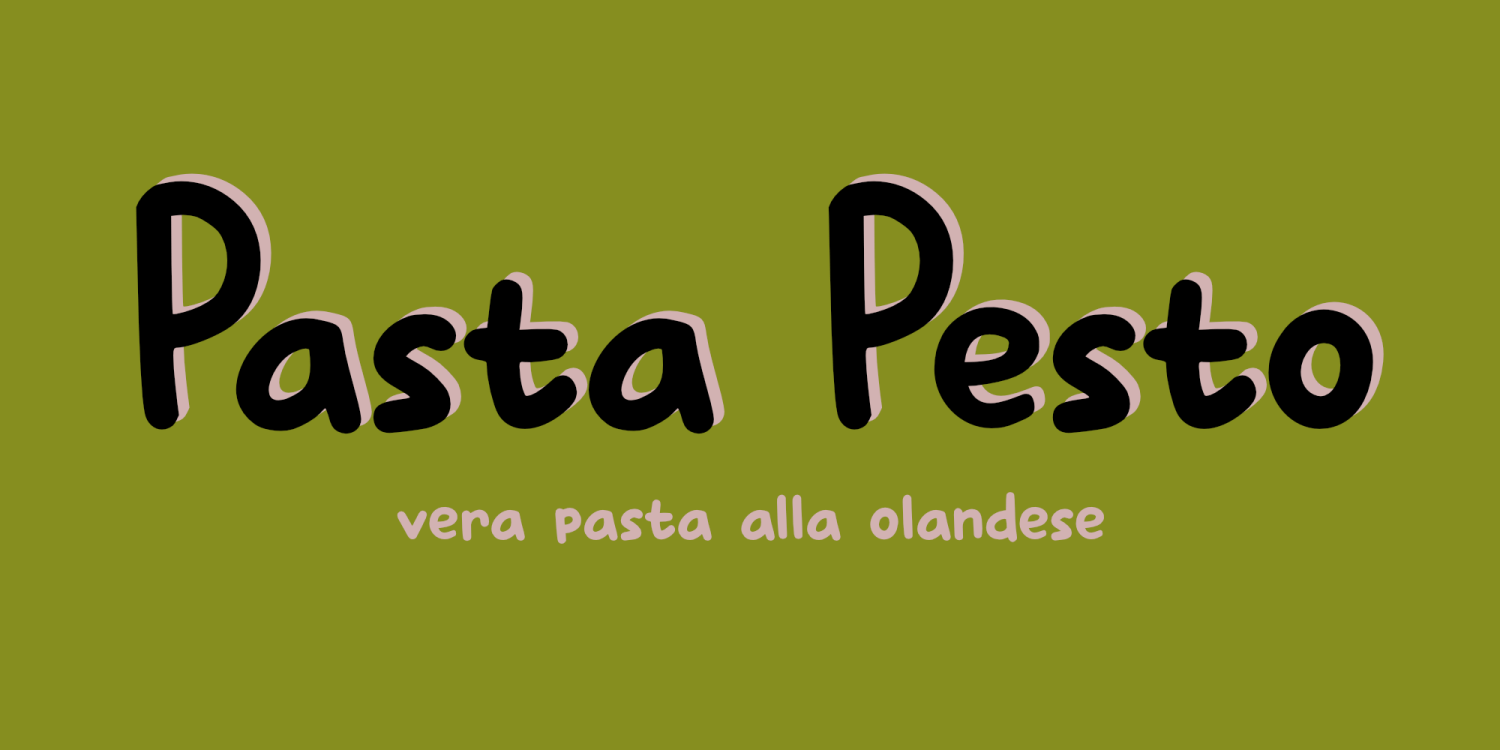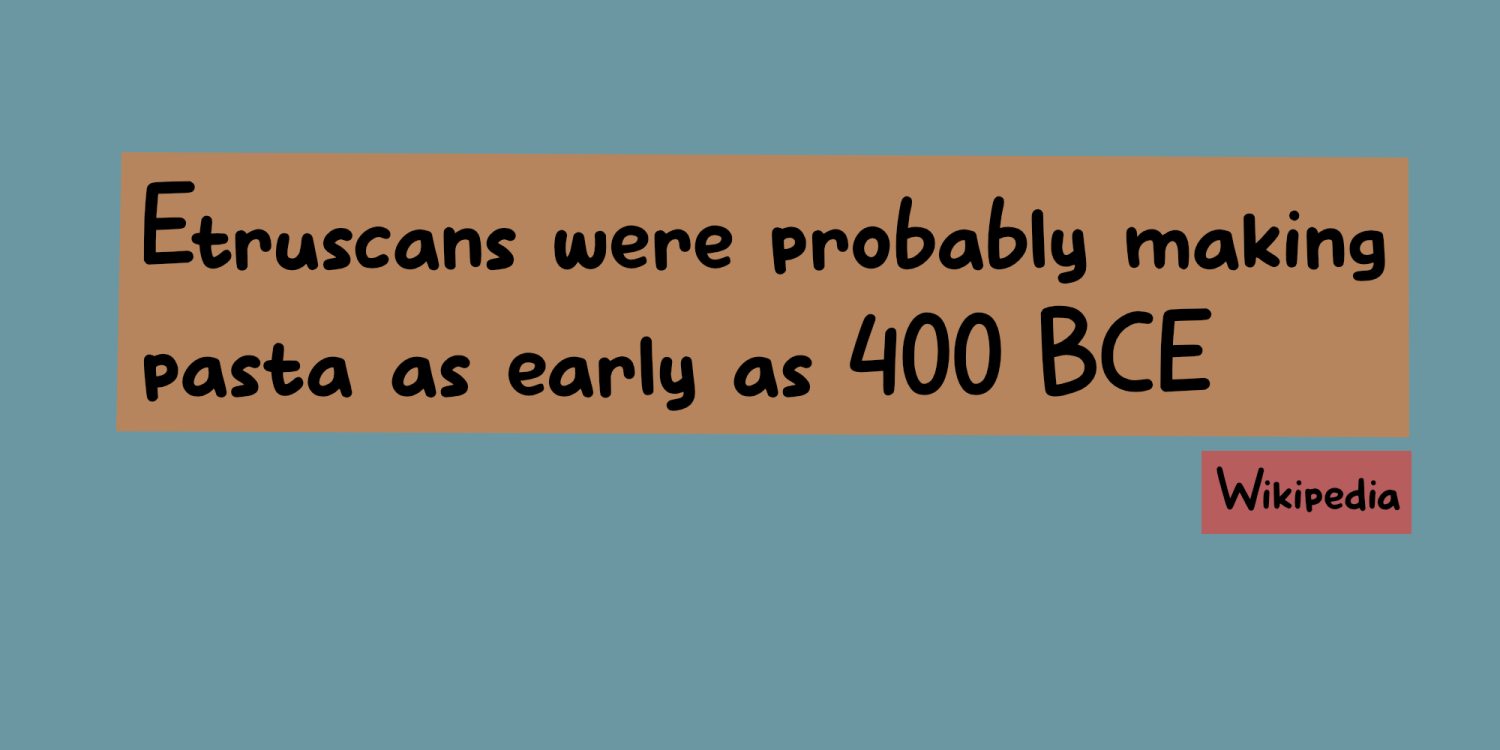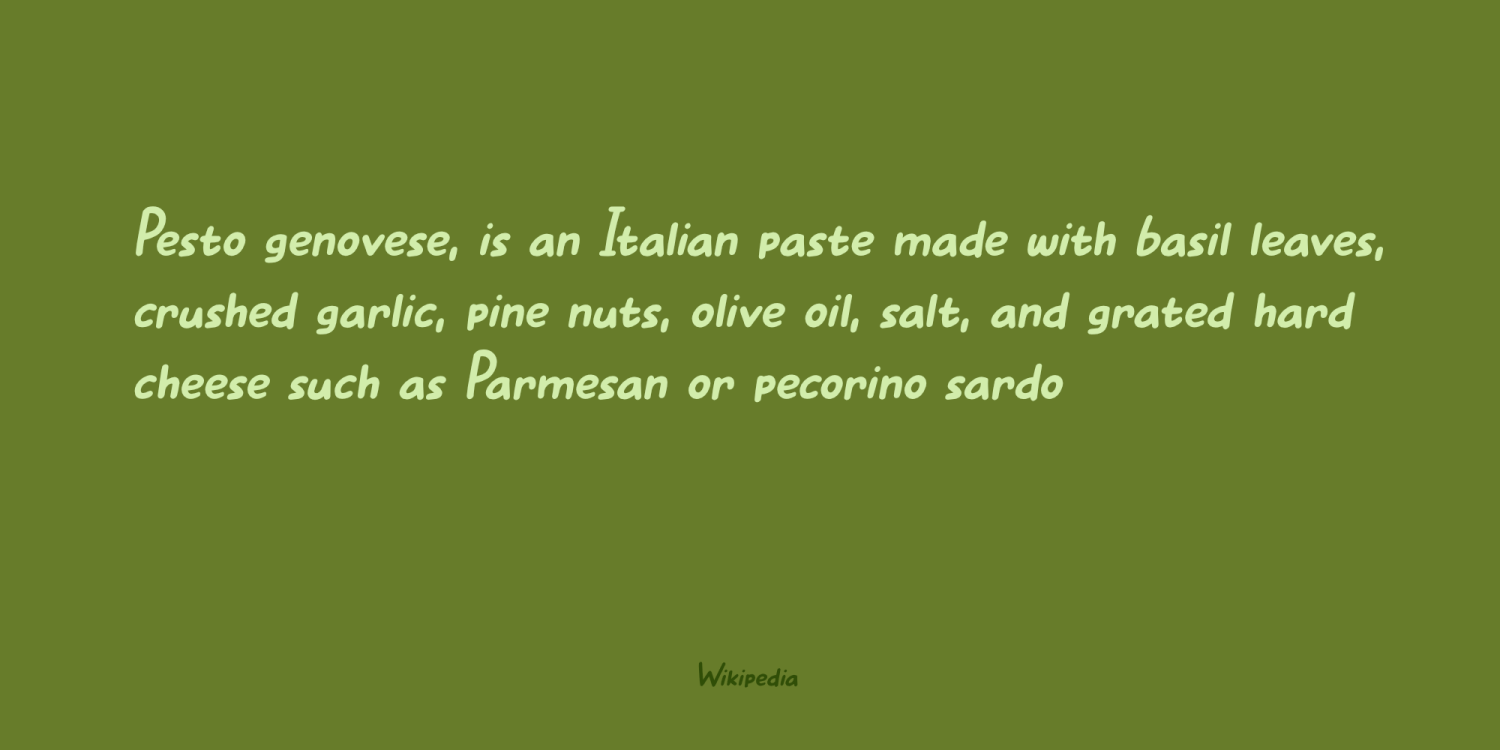
Pasta Pesto
A long time ago, Stephanie, my wife, introduced a dish called Pasta Pesto. It became an instant favourite!
Nowadays we don’t eat it that often, as we have other favourites now, but when we go camping (and we camp out a lot), we make Pasta Pesto on the first night. This is the only time the kids don’t ask: ‘what’s for dinner tonight?’.
Pasta Pesto font is a nice, simple, easy-to-read, display font. It has no hidden agenda, it doesn’t pretend to be flash and important, it just gets the job done.